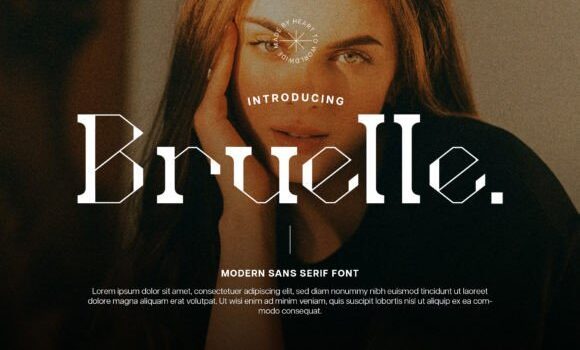
bruelle
Bruelle Font – Free Download Introduction to Bruelle Font Bruelle is a modern serif font with some little lovely glyphic styles. 📸 Preview Gallery 2 images 📌 Product Name Bruelle Font 👤 Author brightonexart 📂 Category Explore ⬇️ Download Bruelle